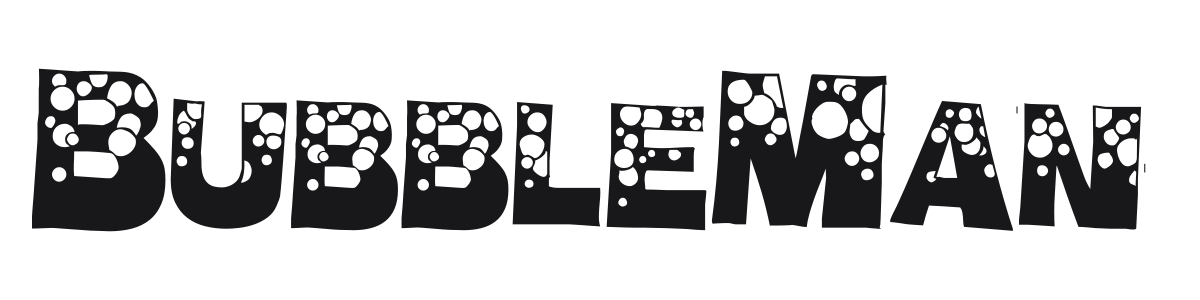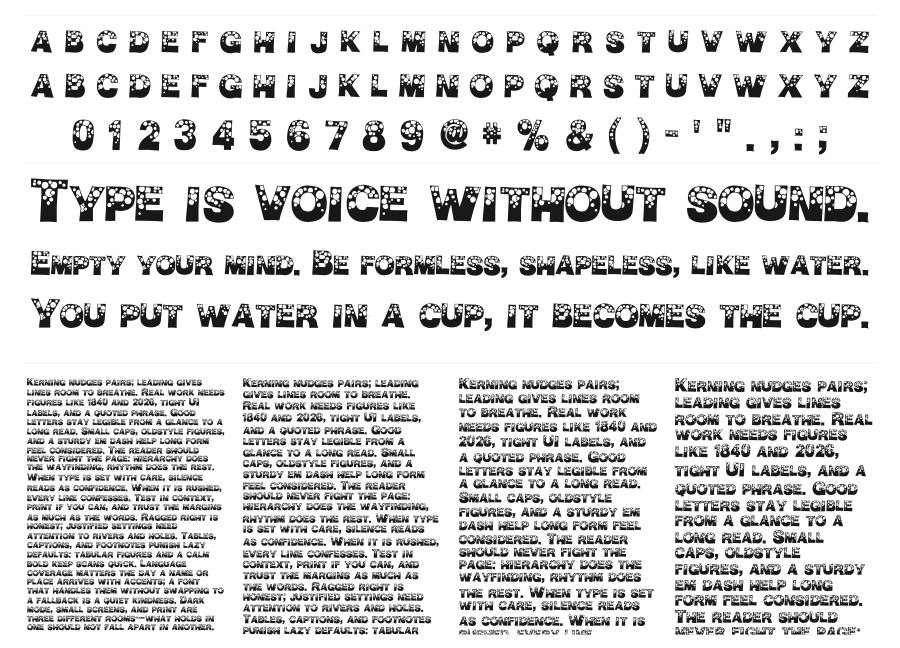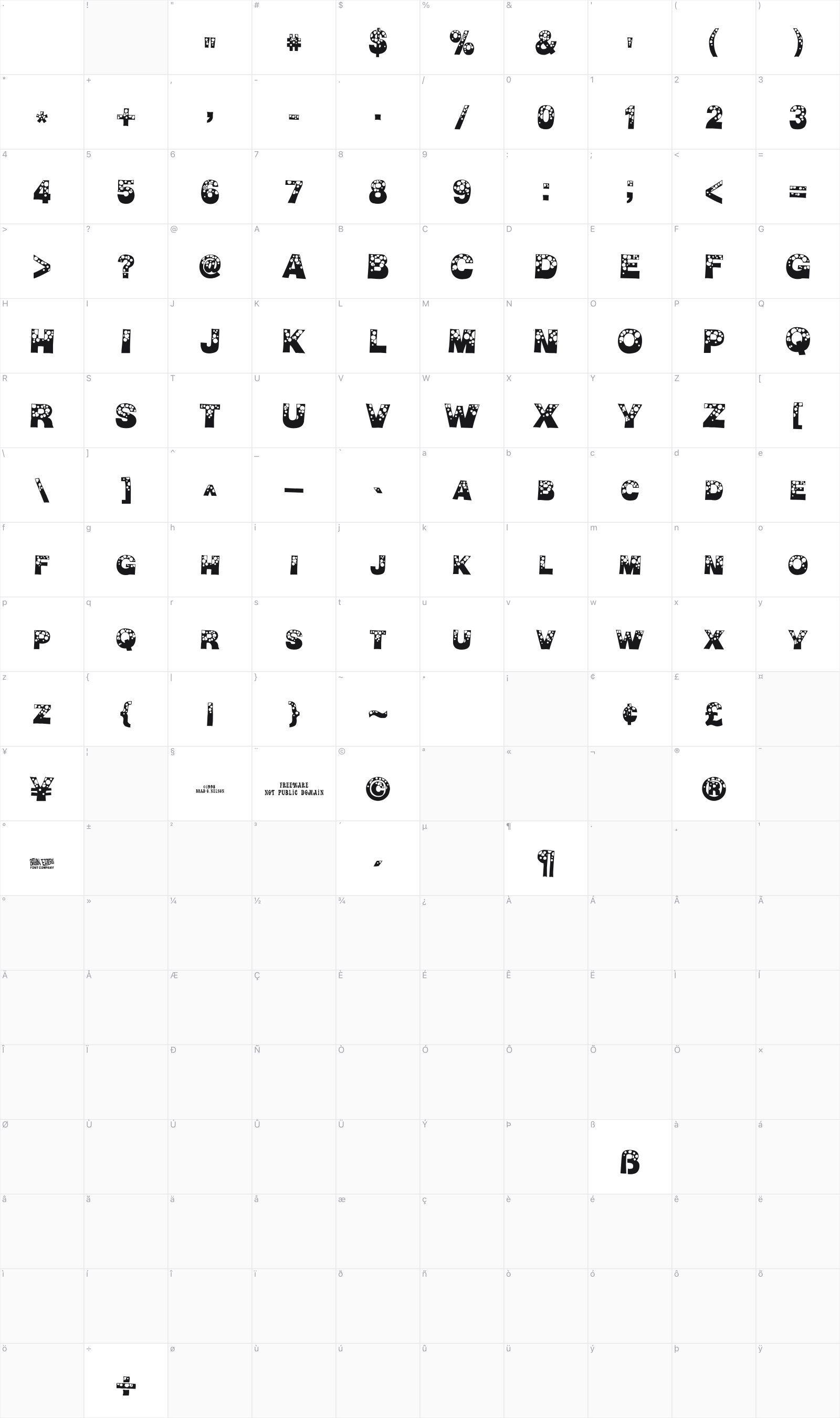
BubbleMan
BubbleMan is a heavy display font whose thick, blocky letters are riddled with circular bubble-like cutouts. The scattered holes give every character an organic, foamy texture that sits somewhere between a cartoon prop and a novelty poster font. It reads loud and playful at any large size.